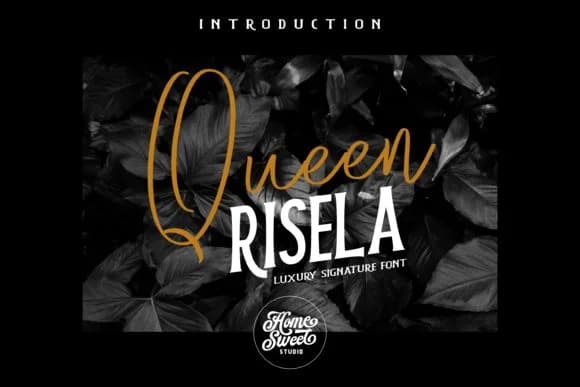
Picture yourself hand-lettering the envelopes for a luxury wedding suite, or sizing bold text across custom packaging labels for a small business. That's where Queen Risela, designed by Home Sweet, becomes your immediate go-to choice. This bold handwritten script brings genuine character to wedding stationery, Etsy product labels, boutique skincare packaging, and hand-lettered signage for pop-up shops or events. The typeface doesn't whisper; it has presence.
The strong, confident letterforms work beautifully at large sizes without losing their warmth and personality. Handwritten fonts often feel delicate or overly casual, but Queen Risela breaks that pattern entirely with its deliberate weight and structured presence. It reads clearly when you're printing a single expansive heading or setting text across a label, making it surprisingly versatile for both display work and practical everyday applications like book covers and event announcements.
Queen Risela Font is a script font that shines as a display or heading face. Pair it with a clean sans-serif or serif font for body text β the contrast creates a clear hierarchy while the two styles stay balanced and easy to read.